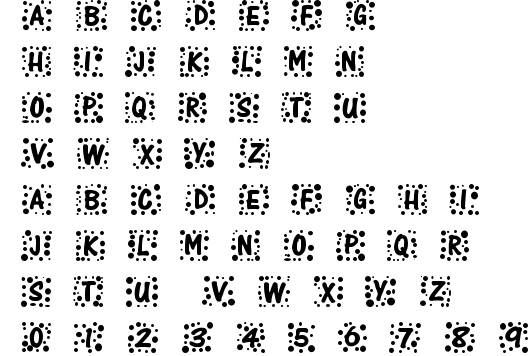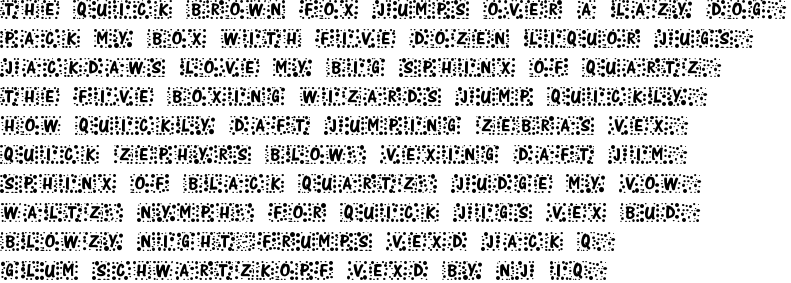
✓ Whimzee
✓ Digital Graphic Labs
✓ A whimsical and light-hearted display face for the less serious times of your life. Felt marker glyphs surrounded by confetti circles.